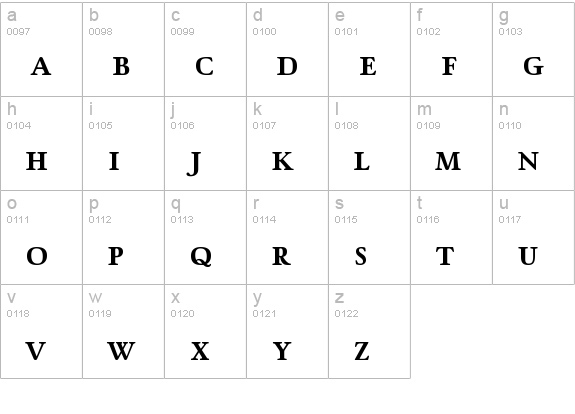
Winthorpe Sc Sb Font Details
Winthorpe Sc Sb font is a sophisticated and elegant typeface that exudes a sense of classic refinement and grace. Its delicate serifs and stylish curves make it perfect for conveying a sense of sophistication and timelessness in any design project. This font is ideal for creating invitations, branding materials, and signage that require a touch of elegance. The Winthorpe Sc Sb font is not only visually appealing but also highly versatile, making it suitable for a wide range of design applications. Whether you're designing a wedding invitation or crafting a logo for a luxury brand, this font will elevate your design to the next level. Best of all, Winthorpe Sc Sb font is available for free download at FontsMarket.com. This means that you can easily access this stunning typeface and incorporate it into your projects without any cost. Don't miss out on the opportunity to enhance your designs with the timeless beauty of Winthorpe Sc Sb font - download it today and take your creativity to new heights.